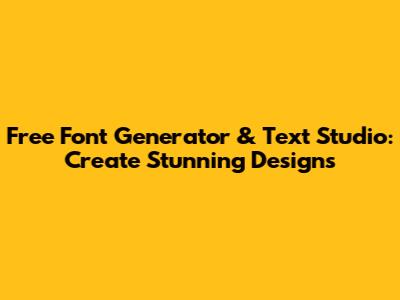
- Font Generator by Fontify: Fontify is a fantastic option for quick and easy text customization. You can choose from a vast library of fonts and adjust size, color, and spacing, as well as apply various text effects like shadows and outlines. It's user-friendly, and the results are pretty stunning. Plus, it's completely web-based, so no downloads are necessary!
- Cool Text: Cool Text is a classic. It's been around for ages and is still a great choice. It offers a variety of pre-designed logos and text styles that you can easily customize. While the features are relatively basic, the output is always professional and visually appealing. It's a great option if you need something quick and effective without a ton of fiddling.
- TextStudio: TextStudio is a very powerful tool that allows for advanced text effects and customization. You can add complex gradients, textures, and even 3D effects. It's perfect if you're looking for more control over your text and want to create something truly unique. But there's more to discover with other TextStudio, which are also very interesting options.
- FlamingText: FlamingText is the best for creating cool logos and headlines. They have a huge range of logo designs, which you can customize to fit any brand. You can add unique effects and animations, and download it in formats that are appropriate to your design. It's ideal if you need a specific logo, or a text that stands out.
- Choose the Right Font: This is the foundation of any good text design. Consider the message you're trying to convey and the overall style of your project. Are you going for a professional look? A playful one? A vintage vibe? Each font has its own personality, so choose wisely.
- Contrast is Key: Don't be afraid to experiment with different font combinations. Pair a bold headline font with a more readable body font. Use different sizes, weights, and colors to create visual interest and guide the viewer's eye.
- Spacing Matters: Pay attention to the spacing between letters (kerning), words (tracking), and lines (leading). Properly adjusted spacing can make a huge difference in readability and overall aesthetic appeal. Many font generators allow you to fine-tune these settings.
- Effects with Caution: Text effects like shadows, outlines, and gradients can be a great way to add visual flair, but use them sparingly. Too many effects can make your text look cluttered and difficult to read. Less is often more!
- Consider Color: Color is a powerful tool for conveying mood and emotion. Choose colors that complement your font and background, and consider the psychology of color. Different colors evoke different feelings, so choose wisely.
- Test and Refine: Once you've created your text, take a step back and look at it from a fresh perspective. Does it look good? Is it easy to read? Does it convey the message you want to communicate? Don't be afraid to make adjustments until you're happy with the result.
- Layering and Blending: Many text studios allow you to layer different text elements and apply blending modes. This can be a great way to create complex effects, such as combining a textured background with a bold font.
- Text Effects and Styles: Experiment with different text effects, such as outlines, shadows, glows, gradients, and textures. You can customize these effects to create unique looks, whether you are trying to imitate 3D or realistic text. The more you play around, the better.
- Text Wrapping and Warping: Some tools allow you to wrap or warp text to fit a specific shape or curve. This is perfect for creating logos, badges, or other design elements that require a unique text layout. Get creative, and create shapes to use as a background or as part of a logo.
- Importing Images and Textures: Enhance your designs by importing images or textures to create custom backgrounds, or apply them to your text for a unique look. The possibilities are truly endless, and this is where you can truly show your creativity.
- Combining Fonts: Mix and match different fonts to create contrast and visual interest. Try pairing a bold, modern headline font with a more classic body font. Make sure the fonts complement each other, to create a harmonious look.
- Social Media Graphics: Create eye-catching posts, banners, and profile pictures for your social media channels. Custom text can significantly increase engagement and brand recognition.
- Website Headers and Banners: Design compelling headers and banners for your website to attract visitors and communicate your message effectively. You can easily create a professional and polished appearance for your website.
- Logos and Branding: Even if you're not a professional designer, you can use a font generator to create basic logos or branding elements for your business or personal projects. This can save you money and give you more control over your brand identity.
- Invitations and Announcements: Design custom invitations and announcements for events, parties, or special occasions. Personalized text adds a touch of creativity and makes your invitations stand out.